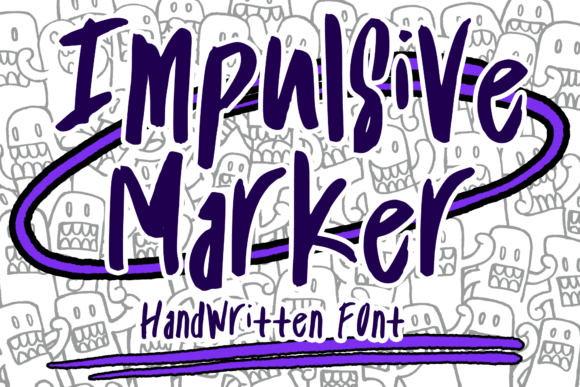
Unleash Your Creativity with Impulsive Marker Font
Have you ever been stuck in a design rut, desperate for that perfect spark to elevate your project? Maybe you were brainstorming ideas for a new t-shirt design, or working on a comic strip that needed a little extra oomph. Whatever the case, we’ve all been there – searching for that one magical element to take our designs from good to great.
That’s where Impulsive Marker Font comes in – a spontaneous and quick handwritten marker font that captures the fun and fluid expressive energy of mankind. With its versatility and unique charm, this font is the perfect addition to any design project, from stickers and logo designs to magazine covers and cartoon drawings. Whether you’re a seasoned pro or just starting out, Impulsive Marker Font is sure to add a super cool touch to your work and take your designs to the next level.
Impulsive Marker Font Key Features
- Font Size: Available in 4 sizes (Regular, Medium, Bold, and Extra Bold), catering to various design needs.
- Unique Characteristics: Distinctive, hand-drawn style with an impulsive feel, ideal for creative and artistic projects.
Impulsive Marker Font Review
Overall, I’m really enjoying working with the Impulsive Marker Font. It’s a fun and energetic font that’s perfect for adding a touch of personality to your designs. ✨ The bold lines and playful letterforms make it a great choice for headings and titles, and it’s also surprisingly legible at smaller font sizes.
One of the things that really stands out about Impulsive Marker is its versatility. It works well for a wide range of design styles, from modern and sleek to vintage and distressed. ✨ I’ve used it in everything from branding and marketing materials to editorial and educational content, and it always adds a bit of flair to the design.
- Fun and energetic feel
- Perfect for headings and titles
- Legible at smaller font sizes
- Works well for a wide range of design styles
- May not be suitable for formal or professional designs
- Some letterforms can be a bit difficult to read at very small sizes
- Not as versatile as some other marker fonts
- Can be a bit too playful for some design applications
Overall, I’d highly recommend the Impulsive Marker Font for designers looking to add a bit of personality to their designs. Just be sure to use it thoughtfully and in the right context.
The Impulsive Marker Font is ideal for creating eye-catching titles, headings, and quotes. It’s also great for adding a personal touch to invitations, social media graphics, and posters. Use it to add a playful and creative feel to your designs.
For the best results, use the Impulsive Marker Font in combination with bold colors and contrasting backgrounds. Experiment with different font sizes and styles to create a unique and engaging visual effect.